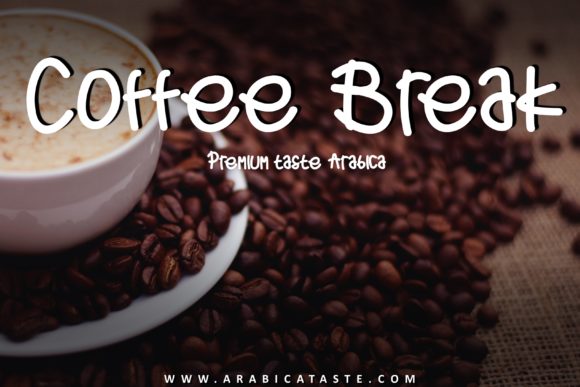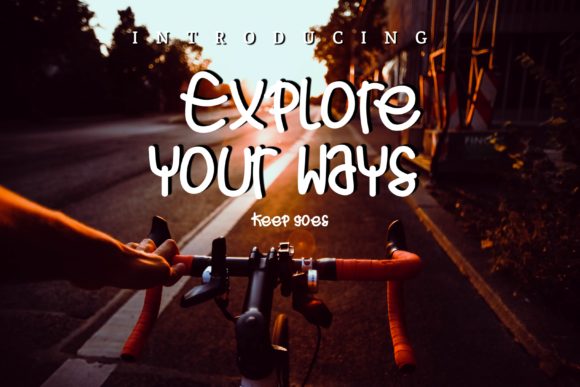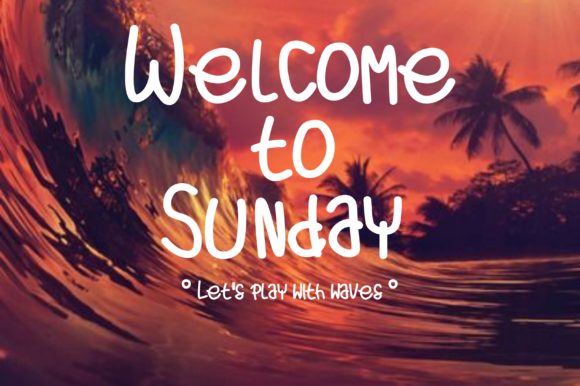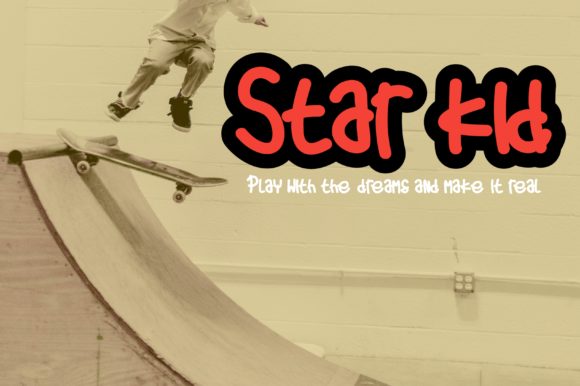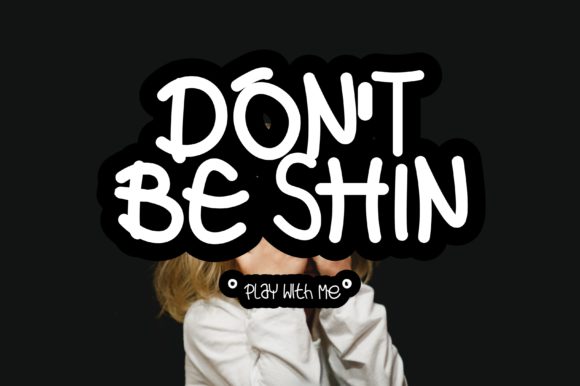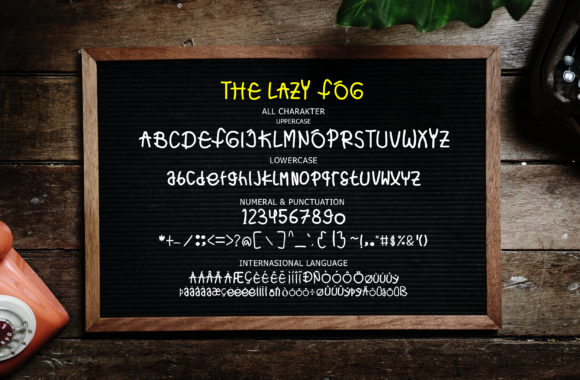
The Lazy Fog Font
About The Lazy Fog Font
The Lazy Fog emerges as a charming handwritten font, characterized by its natural style that exudes a cute and sweet demeanor. This font, with its endearing qualities, proves to be a perfect choice for designs that require an upscale and chic aesthetic.
The inherent charm of The Lazy Fog lies in its handwritten quality, giving it an authentic and organic feel. This natural style contributes to the overall cuteness and sweetness of the font, making it particularly appealing for a range of creative projects.
The versatility of The Lazy Fog becomes apparent in its suitability for designs that demand an upscale and chic look. Whether applied to logos, invitations, posters, or other design elements, this font brings a touch of sophistication while maintaining an overall cute and sweet aesthetic.
The Lazy Fog’s handwritten charm extends its usability to various design contexts, making it well-suited for both digital and print applications. Its ability to convey a delightful and chic style positions it as a valuable tool for designers aiming to create visually appealing and fashionable designs.
In summary, The Lazy Fog is more than just a font; it’s a design asset that combines a natural handwritten style with a cute and sweet demeanor. Its ability to add an upscale and chic look makes it a versatile choice for designers seeking to infuse charm and sophistication into their creative projects.